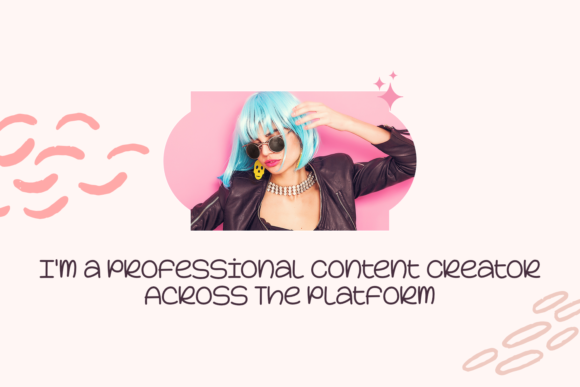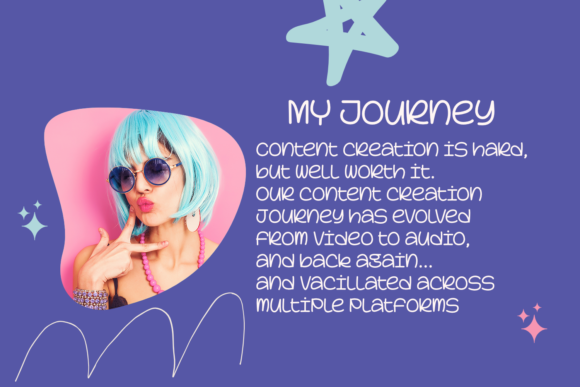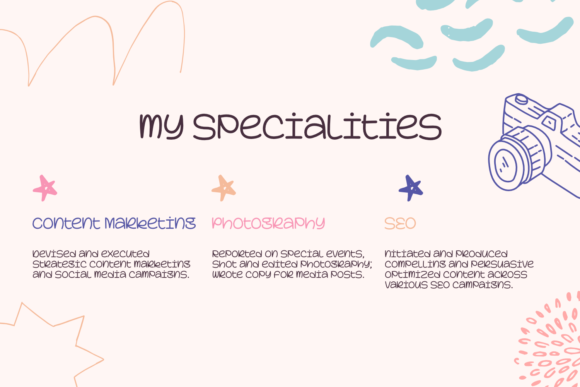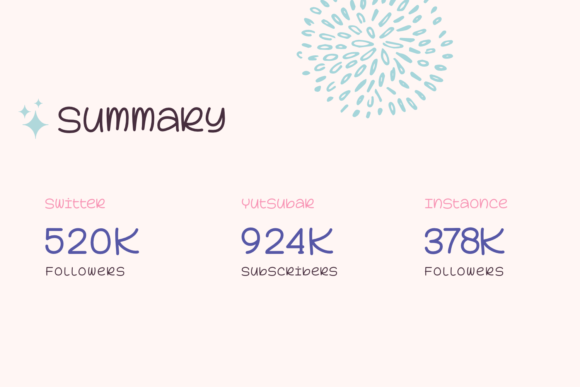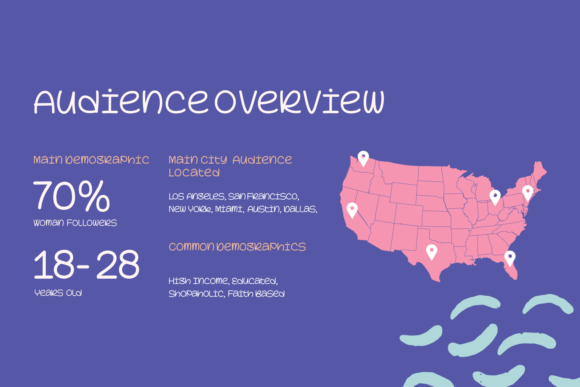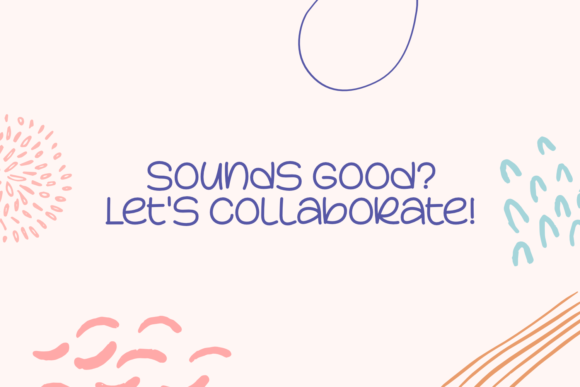
Introduction to Ivory Silk Font
Ivory Silk is a simple, quirky and adaptable handwritten font.
Its informal style and casual vibe will make this font a go-to choice for each of the creations that require a relaxed touch .